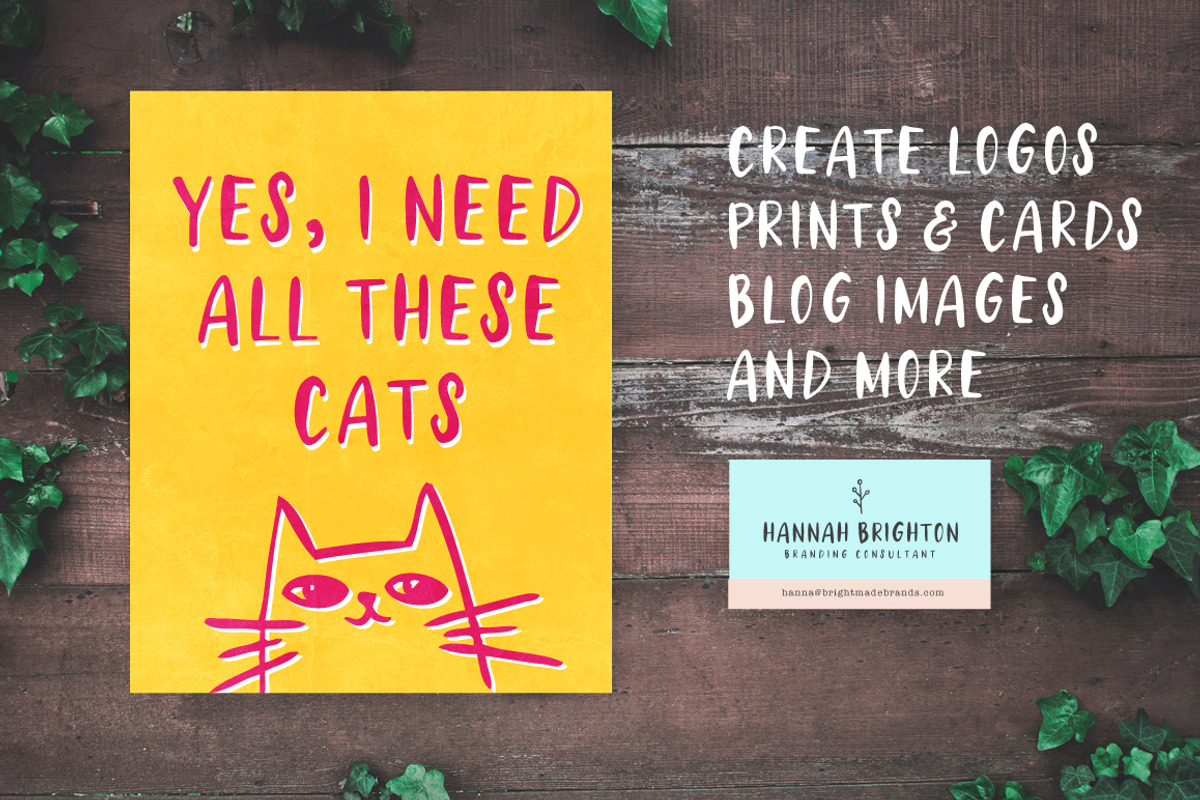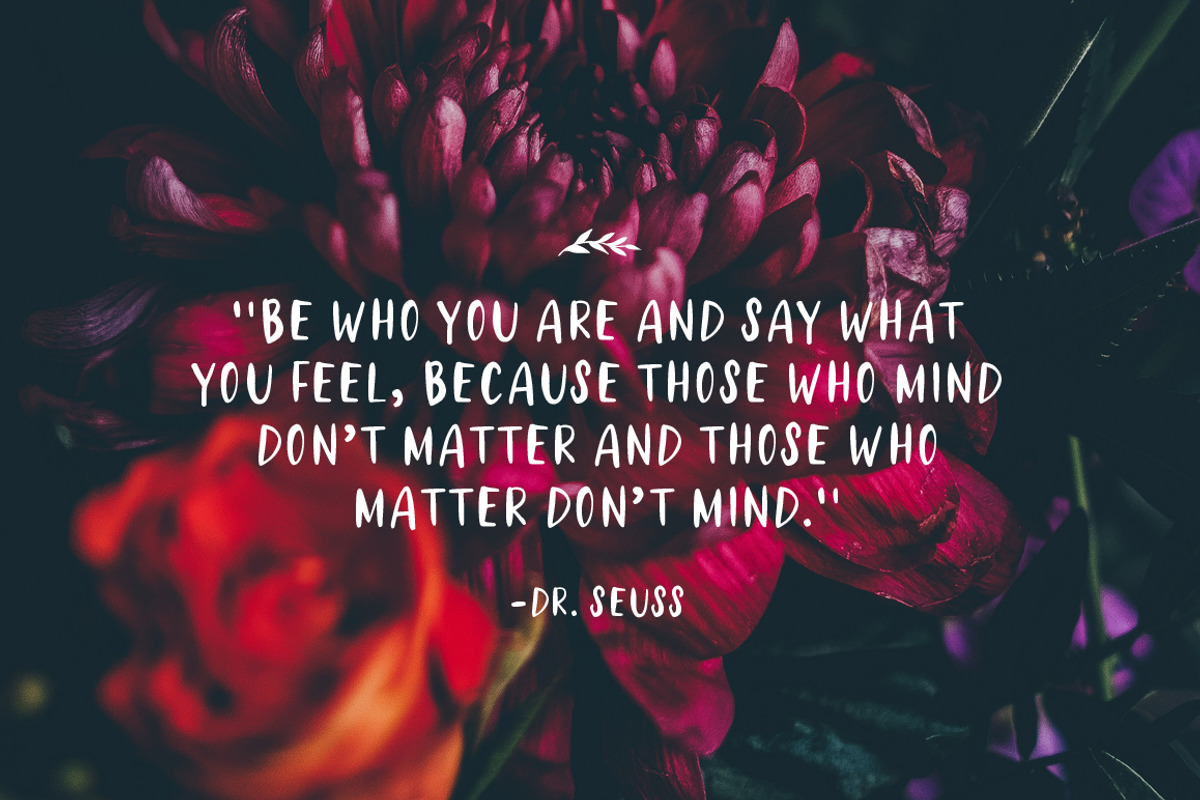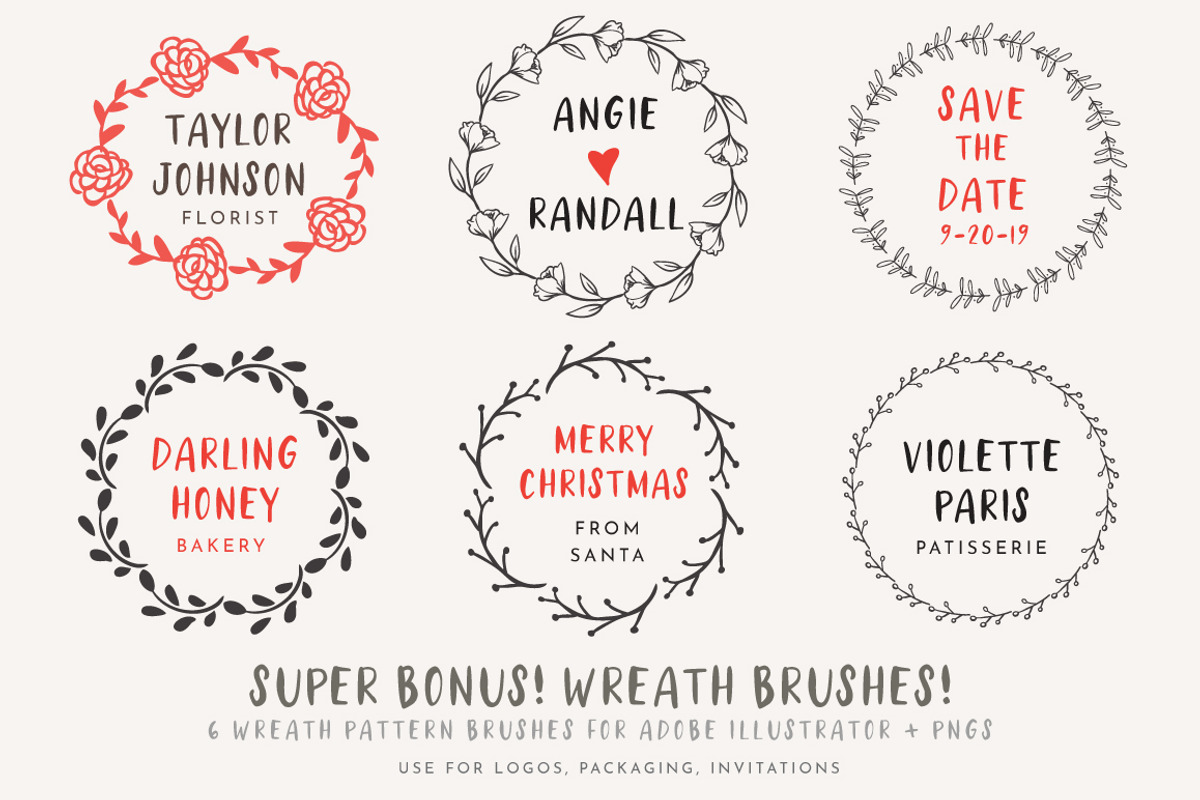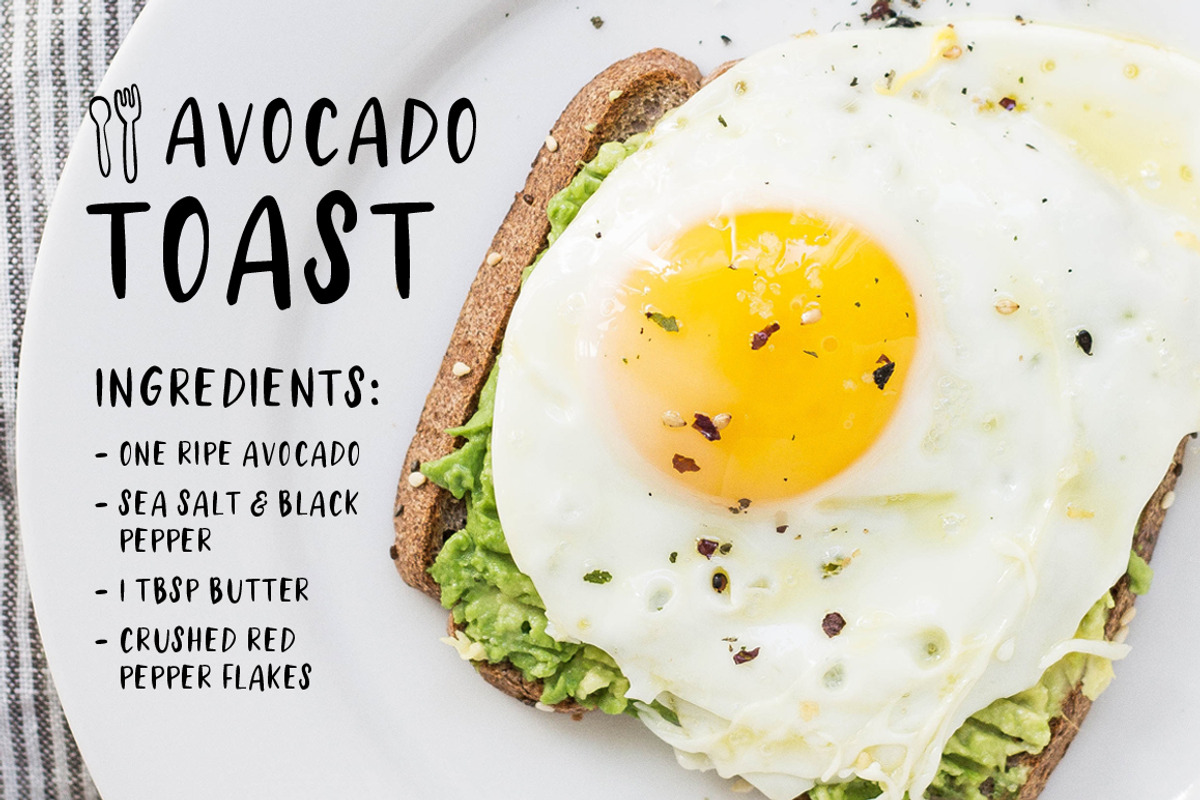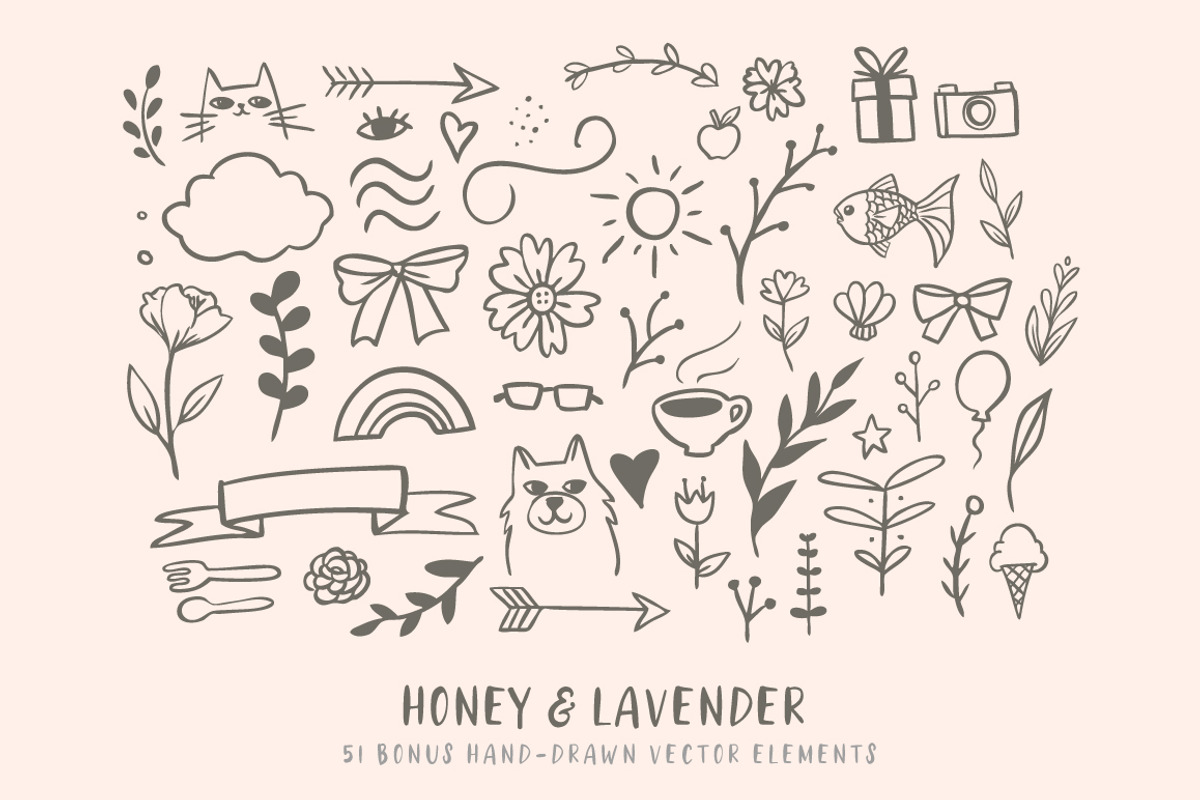
Honey & Lavender Cute Font + Extras
Honey & Lavender is a charming handwritten all caps mini font, perfect for adding a whimsical touch to your projects, such as wall art prints, branding + logos, invitations, funny greeting cards, or blog & social media posts.
As a mini font, Honey & Lavender contains all capital letters from A-Z, numbers, and basic set of punctuation. Try pairing it with scripts or other sans-serifs!
BONUS: Get 51 bonus hand-drawn vector elements with this mini font, plus 6 wreath brushes for Adobe Illustrator! These cute illustrations match well with Honey & Lavender.